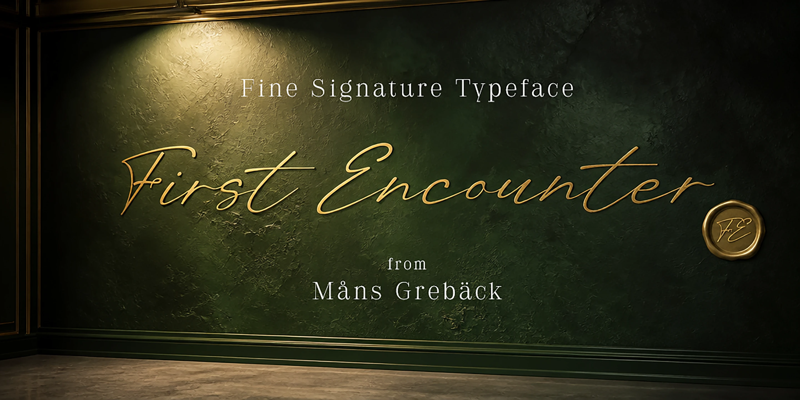
First Encounter
NOTE: This font is for PERSONAL USE ONLY! To purchase a commercial license, visit: https://www.mansgreback.com/product/first-encounter First Encounter is a fine signature handwriting script — the kind of cursive you'd recognize as a real person's hand on a card or a contract. Thin, even pen-pressure throughout, with natural connecting strokes between letters and a small upward bounce in the baseline that keeps a single line from feeling rigid. Capitals carry confident loops; lowercase descenders extend just enough to give phrases air. The italic carries a slightly stronger forward lean. Picture it as the inked sign-off at the bottom of a letterpress invitation, or running across a small velvet jewelry hangtag. For questions, please visit https://mansgreback.com/faq